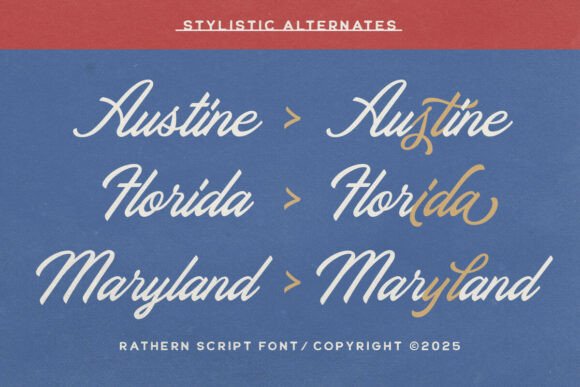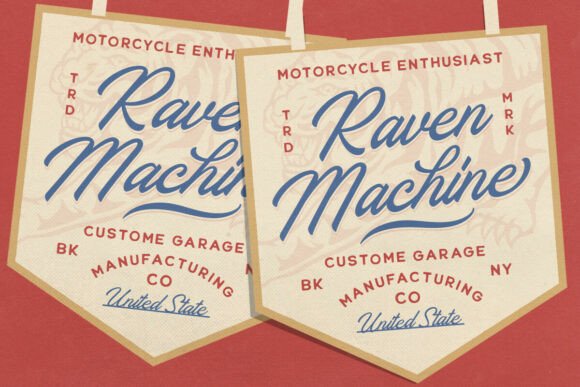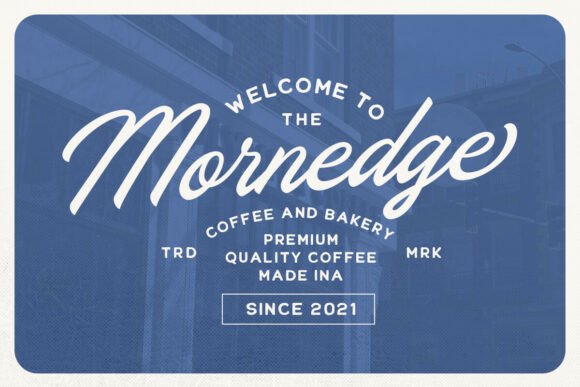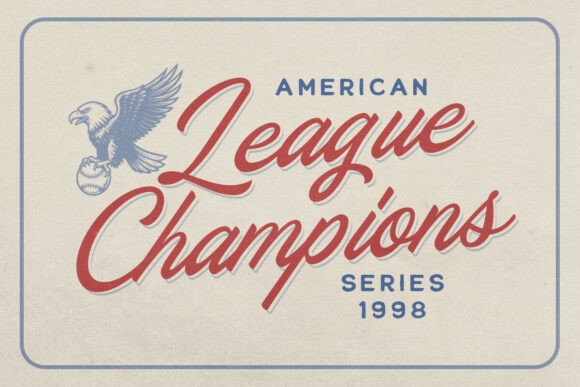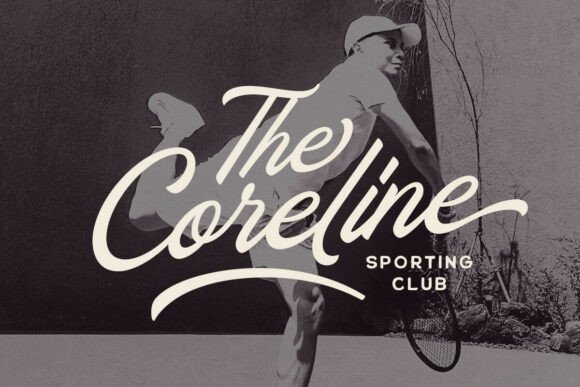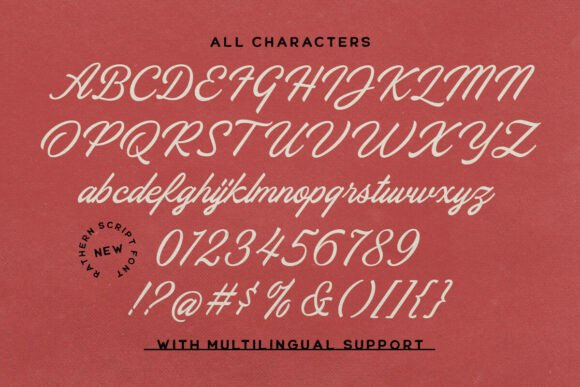
Introduction to Rathern Vintage Script Font
Rathern is a vintage script font that beautifully blends bold curves with elegant flow, evoking the charm of hand-painted lettering from the golden era of sign painting.
Its smooth strokes and subtle retro detailing make it ideal for logos, packaging, posters, and branding that aim to capture a nostalgic yet refined look With a confident and stylish presence, Rathern delivers a timeless vibe that feels both classic and full of character.
Key Features of Rathern Vintage Script Font